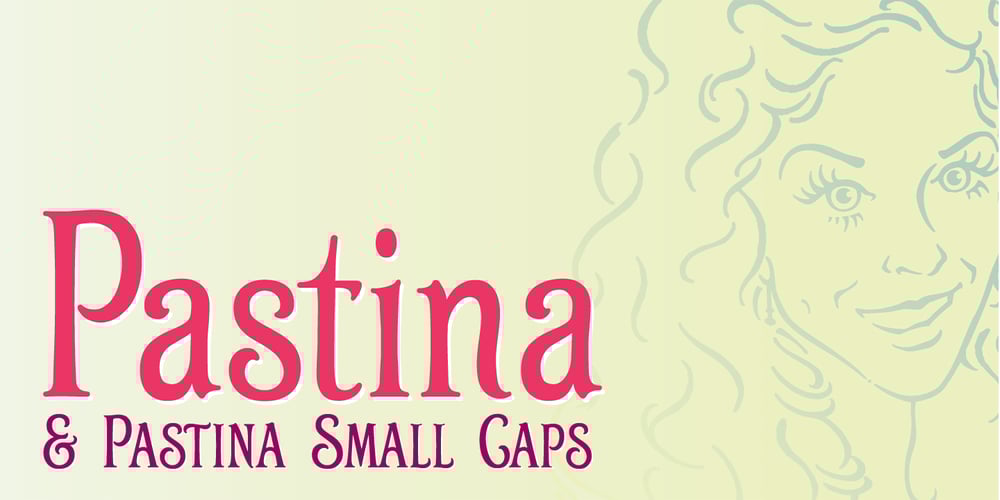
Pastina
Pastina font
Pastina Font Family was designed by James A. Lebbad and published by Lebbad Design. Pastina contains 2 styles and family package options. Pastina is an elegant serif font consisting of caps, lower case, and alternate characters. Soft serifs and the graceful flow of each character add to the classic feel of this font.